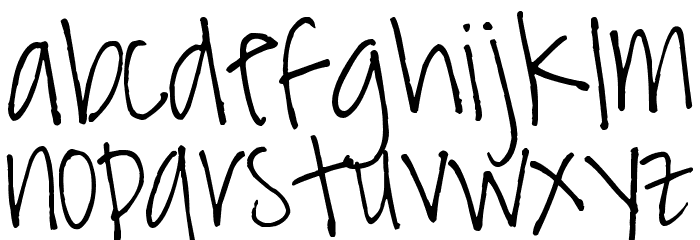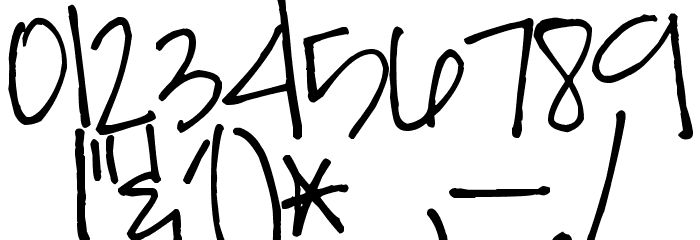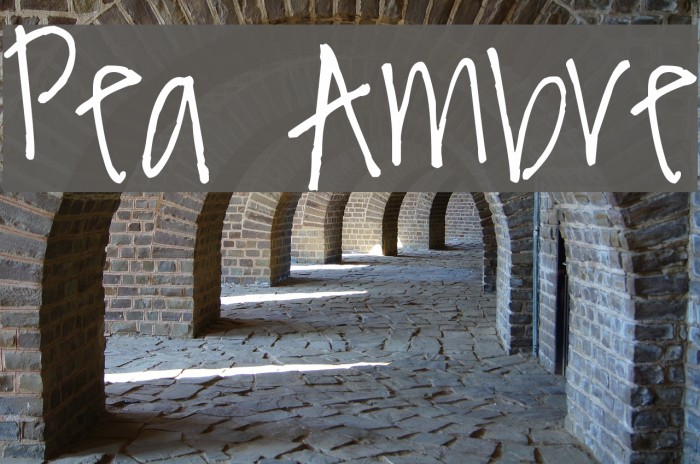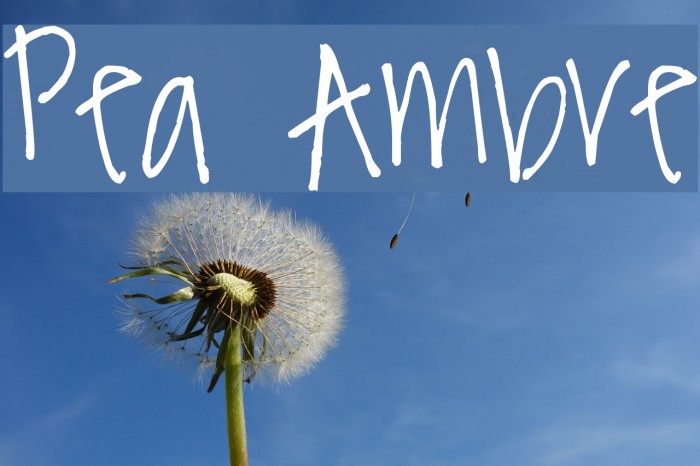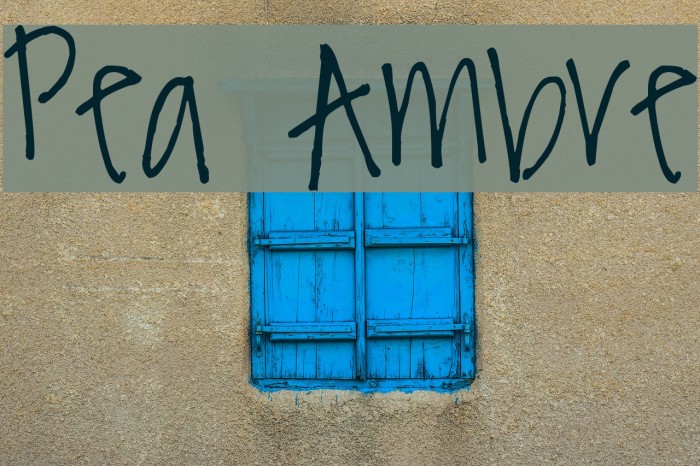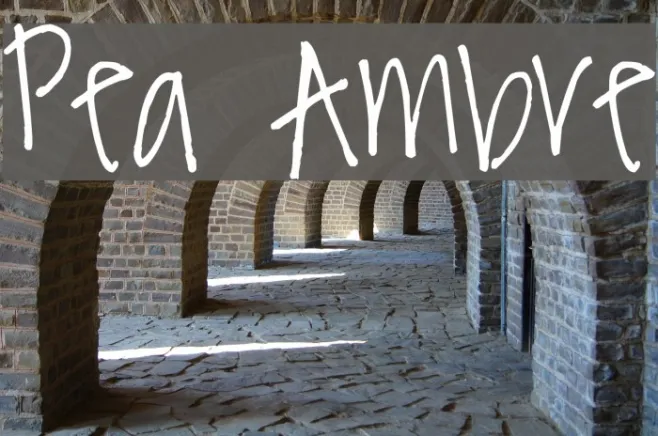
Pea Ambre Font
This font exudes a casual and playful handwritten style, characterized by its uneven strokes and organic flow. The letters are slightly tilted, giving it a dynamic and lively appearance. The uppercase and lowercase letters maintain a consistent style, with a noticeable variation in stroke thickness that adds to its charm. The numbers and special characters follow the same informal aesthetic, making it suitable for projects that require a personal touch. The overall appearance is approachable and friendly, ideal for conveying warmth and creativity.
A playful, handwritten font with uneven strokes and a lively, dynamic appearance.
- Font: Pea Ambre
- Proposed Projects: Great for personal invitations, greeting cards, children's books, and creative branding projects.
- Overall Style: Casual, Playful
- Use Case: Headlines, Informal text, Creative projects